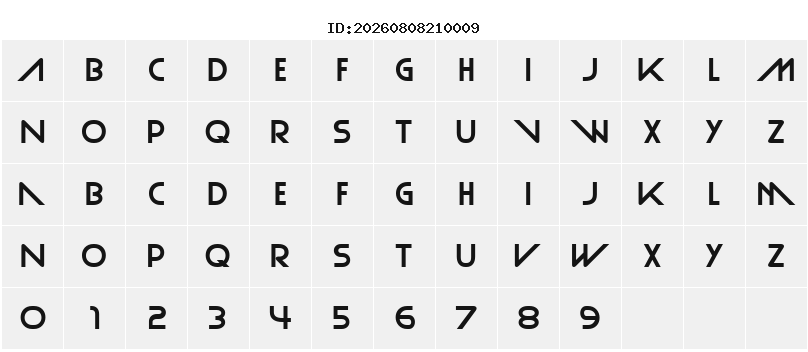
Plain Cred Preview
• Font Name: Plain Cred
• Font ID: Plain Cred
• Full Font Name: Plain Cred
• PostScript Name: PlainCred
• Character Count: 466
• Designer: Ray Larabie
• Manufacturer: Larabie Fonts
About Plain Cred.ttf
Plain Cred.ttf is a modern, elegant sans-serif font designed for ultimate readability and visual harmony. Perfect for branding, headlines, web design, and print materials.